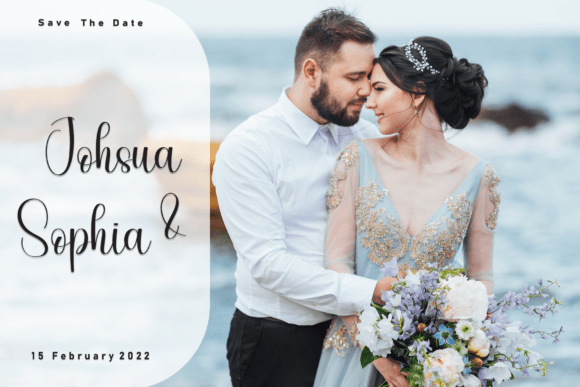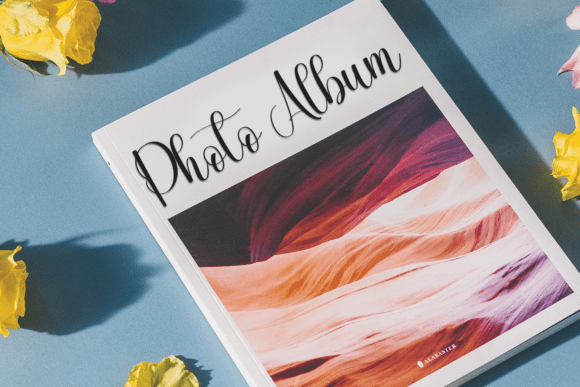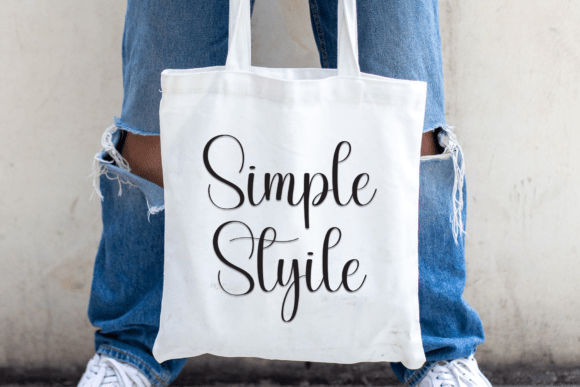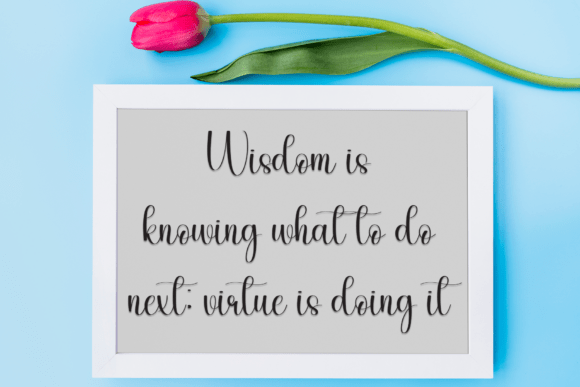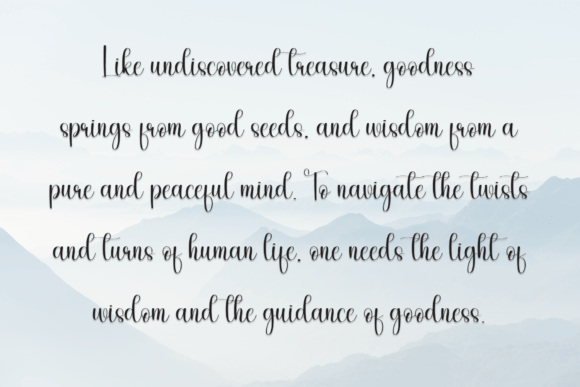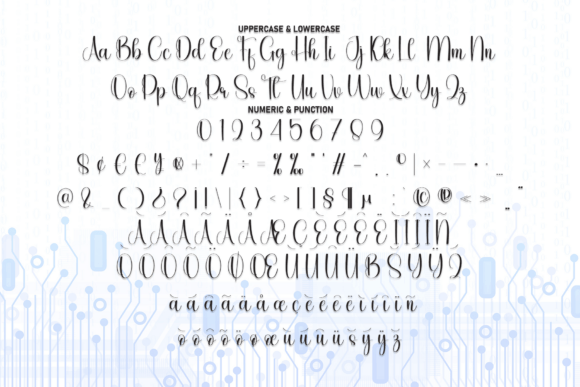
Discover the Enchanting Beauty of Digitaly Font
In the world of typography, few fonts have managed to capture the essence of serenity and whimsy as effortlessly as Digitaly Font. This skillfully crafted display font is a masterpiece that radiates an atmosphere of calmness, making it an ideal choice for designers and crafters looking to infuse their artistic creations with a sense of genuine warmth. With its perfect blend of whimsical charm and mesmerizing appeal, Digitaly Font is sure to leave a lasting impression on your audience.
The Perfect Blend of Whimsy and Sophistication
Digitaly Font is an unusual font that effortlessly juggles between delicate bliss and elegant sophistication. Its unique design makes it an unparalleled choice when it comes to composing captivating wedding invitations, stirring deep emotions through heartfelt greeting cards, or sprinkling a delightful spark of joy into all of your artistic pursuits. Whether you’re a designer, crafter, or simply someone who appreciates the beauty of typography, Digitaly Font is sure to intensify your creative brilliance and boost the charm of your designs.
Crafting Captivating Designs with Digitaly Font
One of the most significant advantages of Digitaly Font is its versatility. Its enchanting allure is bewitching and enticing, creating a beguiling serenade of elegance that is sure to captivate your audience. With Digitaly Font, you can create designs that are not only visually stunning but also emotionally resonant. Imagine crafting wedding invitations that set the tone for a dreamy, fairytale-like wedding, or creating greeting cards that convey heartfelt emotions with sincerity and depth. The possibilities are endless with Digitaly Font.
Why Choose Digitaly Font?
So, what sets Digitaly Font apart from other fonts? Here are just a few reasons why designers and crafters are falling in love with this enchanting font:
- Unique Design: Digitaly Font boasts a unique design that is both whimsical and sophisticated, making it perfect for a wide range of artistic pursuits.
- Emotional Resonance: This font has a way of stirring deep emotions, making it ideal for creating heartfelt greeting cards, wedding invitations, and other designs that require a personal touch.
- Versatility: Digitaly Font is incredibly versatile, making it suitable for a wide range of design projects, from digital art to print materials.
- Elegance: This font exudes elegance and sophistication, adding a touch of refinement to even the most delicate designs.
Tips for Using Digitaly Font
To get the most out of Digitaly Font, here are a few tips to keep in mind:
- Experiment with Sizes: Digitaly Font looks stunning in a variety of sizes, so don’t be afraid to experiment to find the perfect size for your design.
- Pair with Complementary Fonts: Pair Digitaly Font with complementary fonts to create a visually stunning design that showcases the unique qualities of this font.
- Use in Combination with Images: Digitaly Font looks beautiful in combination with images, so consider using it to add a touch of elegance to your designs.
In conclusion, Digitaly Font is a truly enchanting font that is sure to captivate designers and crafters alike. Its unique blend of whimsy and sophistication makes it perfect for a wide range of artistic pursuits, from wedding invitations to greeting cards and beyond. With its emotional resonance, versatility, and elegance, Digitaly Font is sure to intensify your creative brilliance and boost the charm of your designs. So why wait? Give in to the irresistible attraction of Digitaly Font and discover the bewitching beauty of this skillfully crafted display font for yourself.